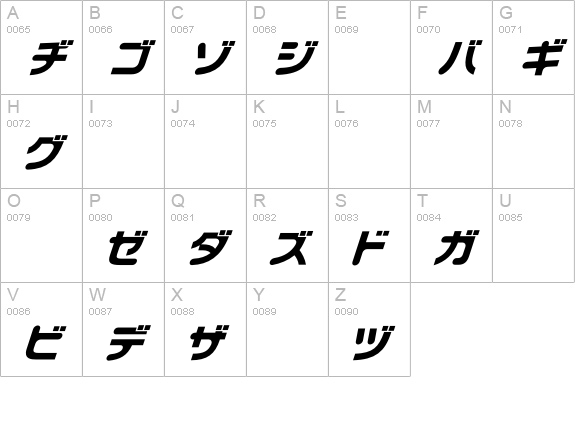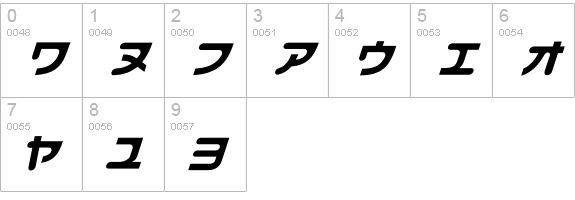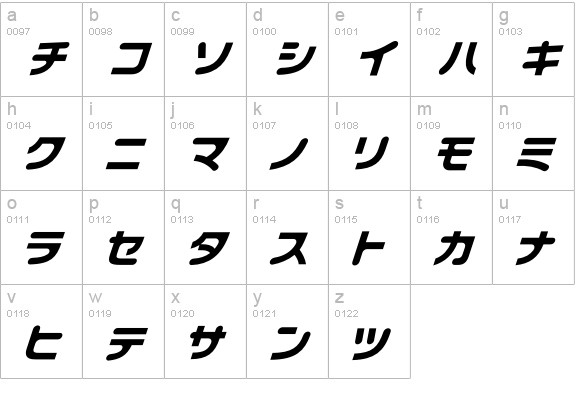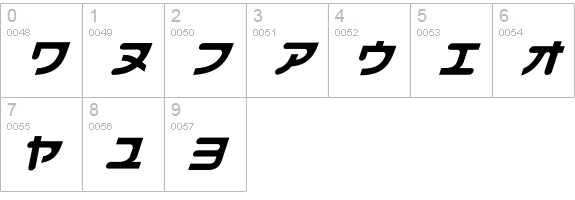
Chibacity-Regular Font Details
Chibacity-Regular is the standard, neutral variant in the Chibacity typeface family \xE2\x80\x94 well suited to general body text, paragraphs, and standard typographic work.
Chibacity-Regular font is a modern and stylish typeface that exudes elegance and sophistication. With its clean lines and sleek design, this font is perfect for a wide range of projects, from branding to web design. The versatility of Chibacity-Regular makes it suitable for both headlines and body text, ensuring your content looks polished and professional. What sets Chibacity-Regular apart is that it is completely free to download. That's right, you can access this stunning font at no cost on FontsMarket.com. Whether you're a designer looking to add a fresh touch to your creations or a business owner in need of a new look for your brand, Chibacity-Regular is a fantastic choice. Download it today and elevate your design projects with this fantastic font.